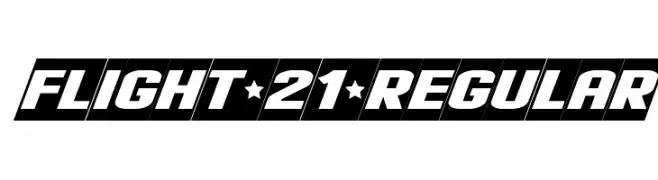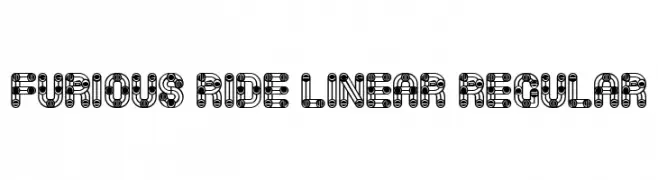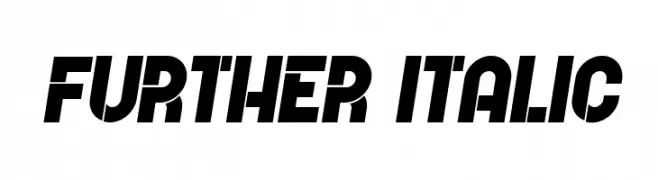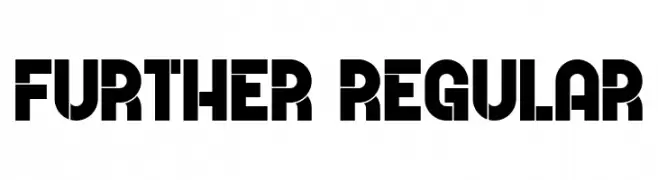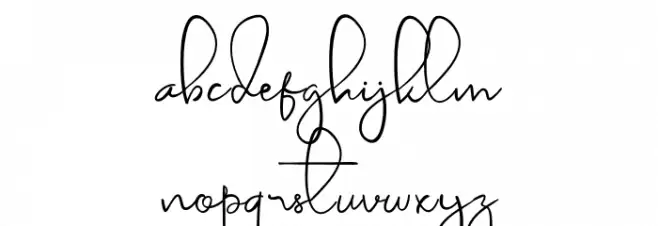
A bold, slanted font with a dynamic and modern style.
A playful, hand-drawn font with whimsical and dynamic letterforms.
A bold, dynamic font with a unique linear pattern and modern industrial feel.
A bold, italic font with a modern, geometric style.
A bold, geometric font with a futuristic and angular design.